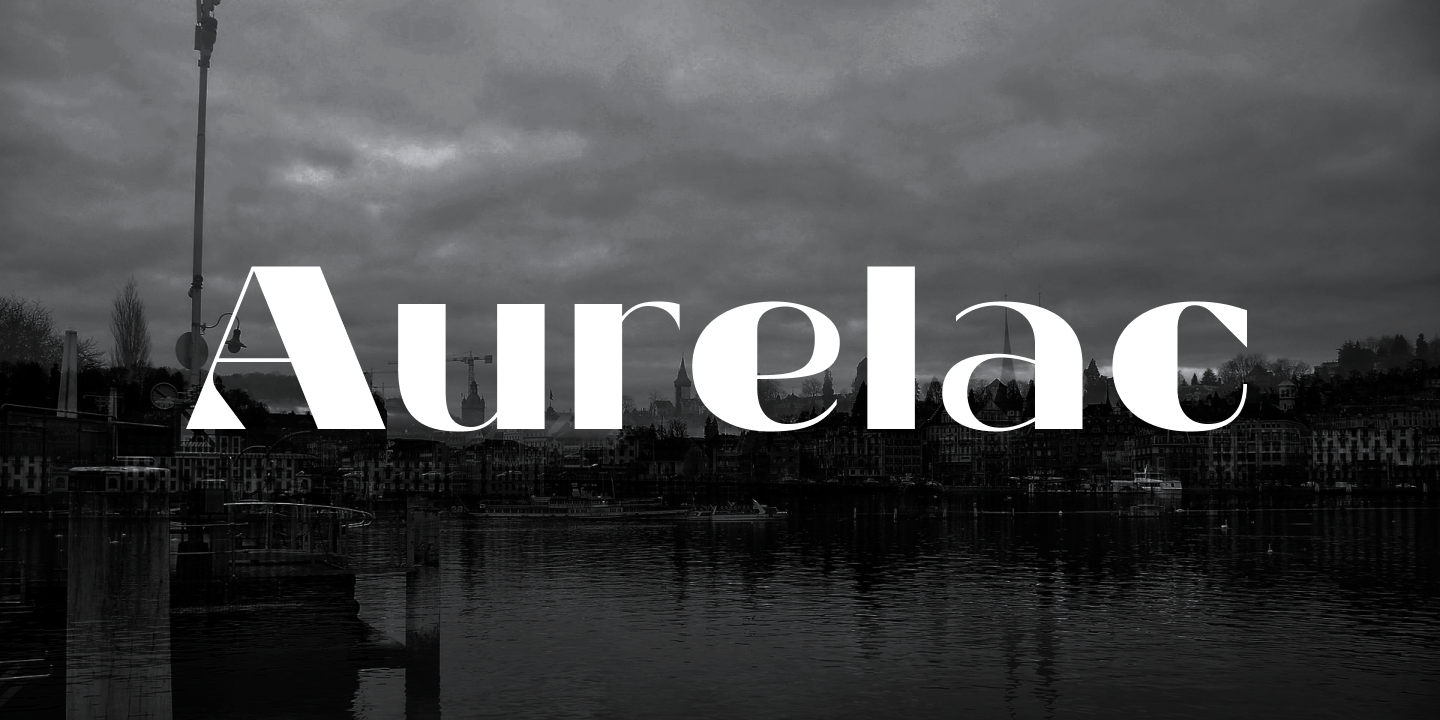
Aurelac Font is perfect for golden luxury branding, precious metal jewelry marketing, aureate gilding services, golden anniversary celebrations, luxury gold leaf artistry, and radiant premium product packaging. Its luminous character makes it ideal for gold dealers, luxury jewelers, gilding specialists, premium anniversary event planners, and any application requiring golden typography that conveys precious metal elegance, aureate sophistication, and the timeless luxury of gold-inspired design and precious metalwork craftsmanship.
Aurelac Font is exciting because it embodies the luminous beauty and precious elegance of gold through aureately crafted letterforms that shimmer with the same radiant sophistication as finely worked precious metals. Its golden proportions and metallic-inspired details evoke the warm glow of polished gold and the prestigious luxury that precious metals represent, making it perfect for brands celebrating authentic luxury and precious metal artistry. The font's aureate character transforms communications into expressions of golden sophistication.
Aurelac Font family includes precious metal-inspired weight variations typically featuring Light, Regular, Medium, and Bold options with golden styling that maintains luxury authenticity. The family often incorporates precious metal symbols, aureate ornaments, and luxury elements designed for premium metalwork applications, providing designers with comprehensive tools for creating authentic, gold-focused typographic compositions.
When selecting precious metal luxury typography solutions, Aurelac Font Free Download represents an exceptional choice for golden luxury and jewelry projects. This radiant typeface brings instant precious metal authenticity to any design, making it invaluable for luxury jewelers, gold artisans, and premium brands celebrating golden elegance. Whether you're developing luxury jewelry branding, creating precious metal marketing materials, or designing golden anniversary campaigns, Aurelac Font provides the aureate sophistication and precious metal authenticity essential for capturing golden luxury in today's precious metals marketplace.